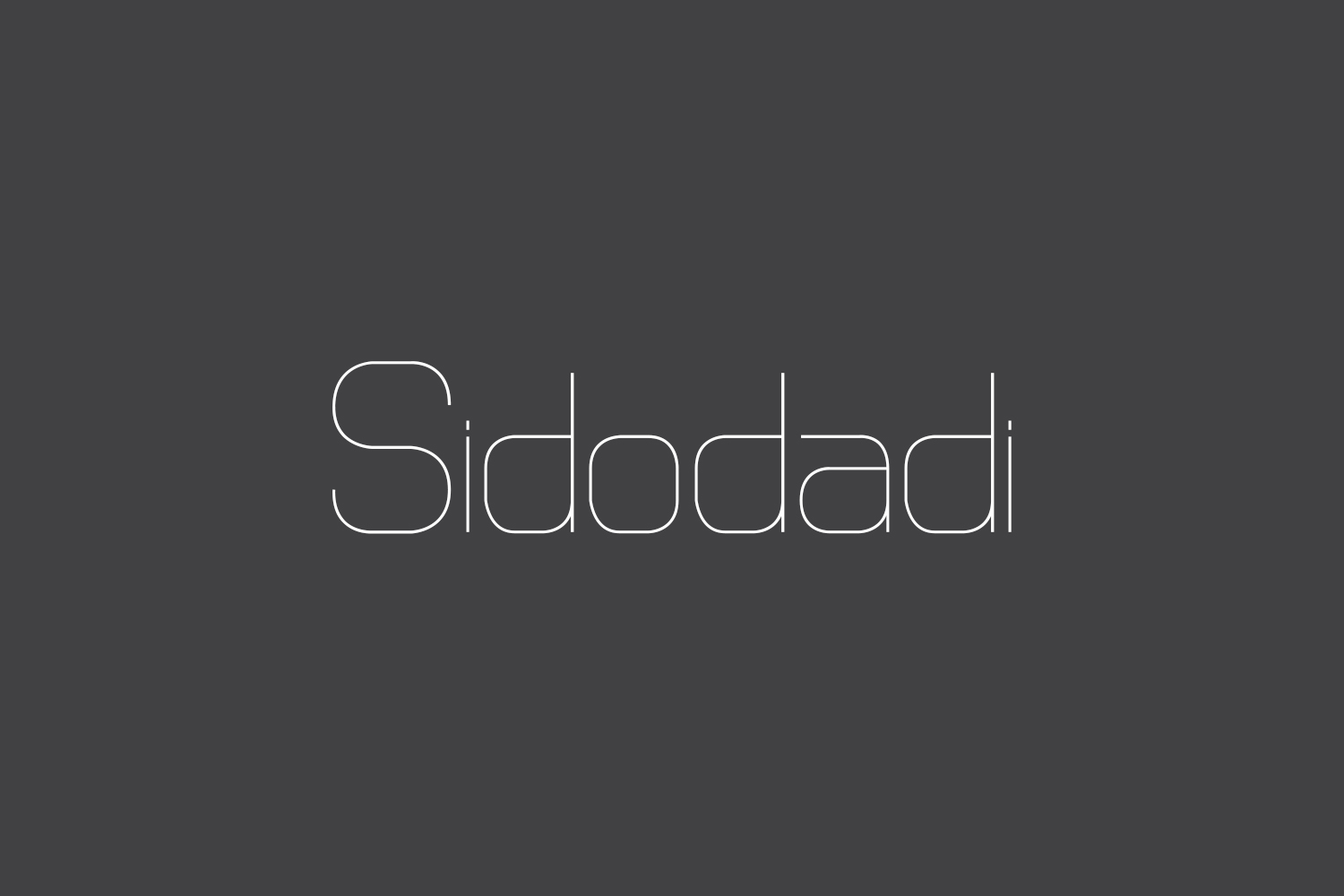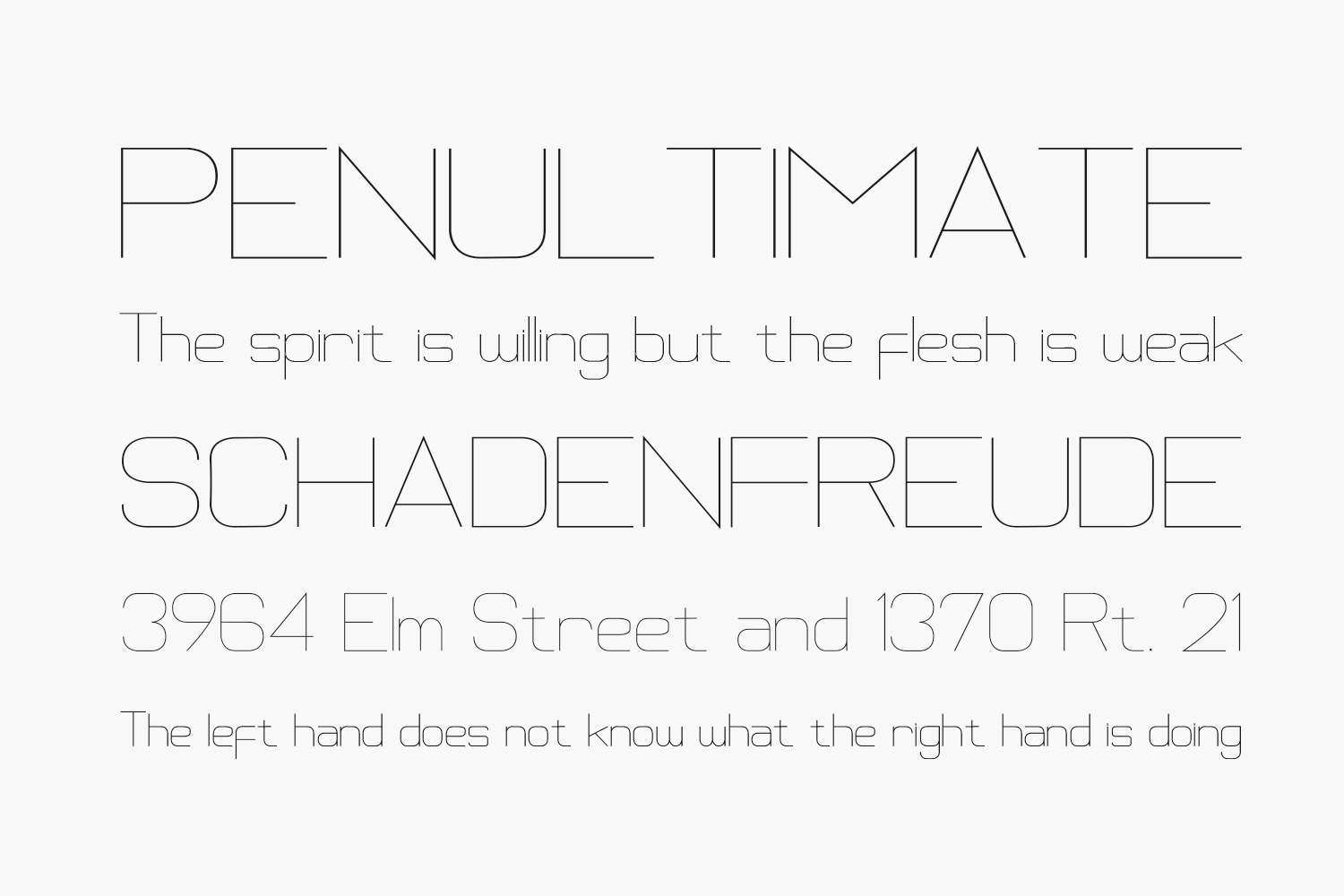
Sidodadi Free Font is a cool and modern look styled sans serif font. Download the font for free if you need it for personal use or purchase the full version for commercial use.
Designed by Masdhan